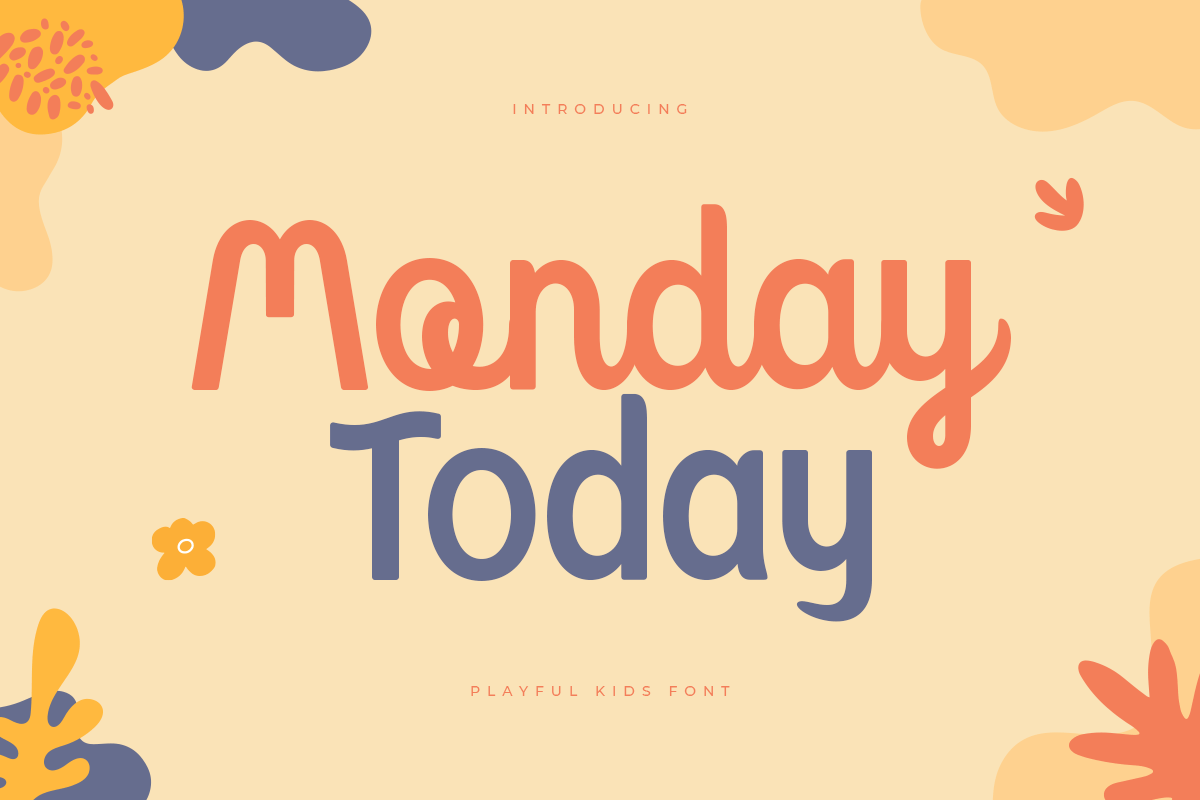
Monday Today
-Playful Kids font
Monday Today
Monday Today is a fun and playful cute typeface. It is perfect for logotype, flyer, greeting cards, packaging, book cover, printed quotes, headings, etc.